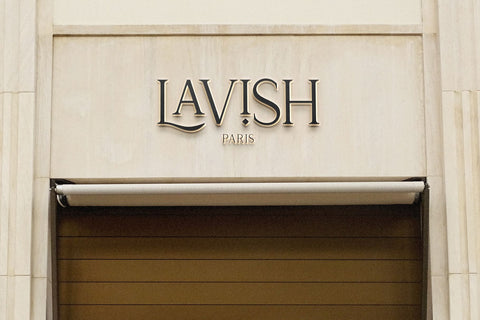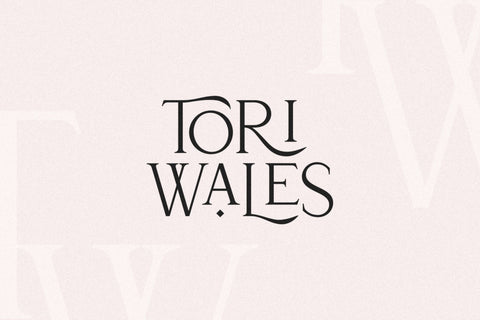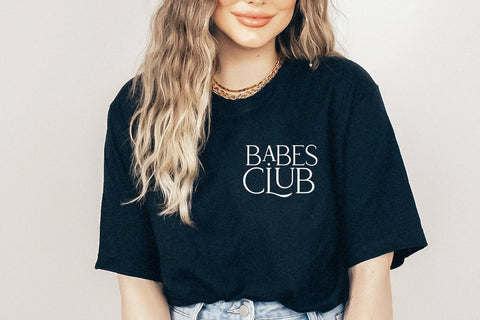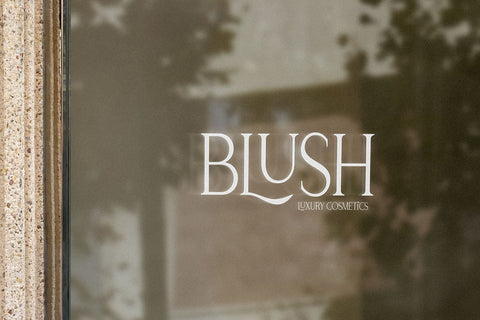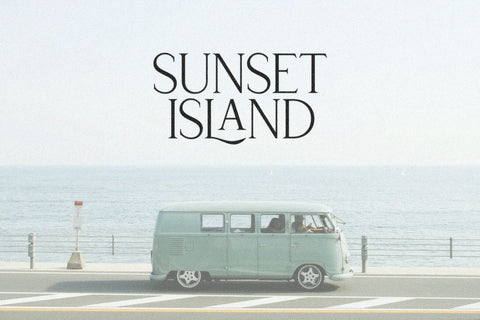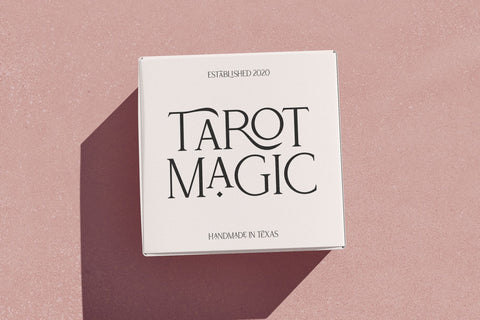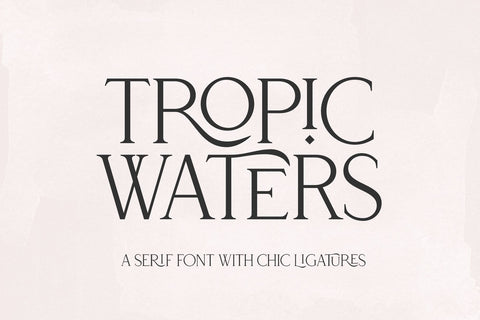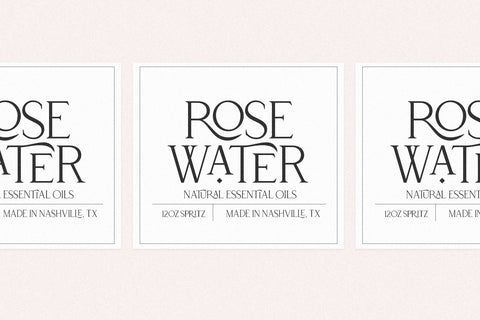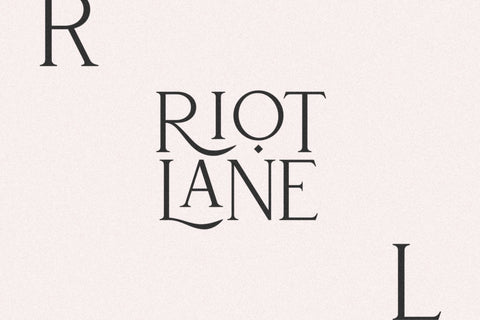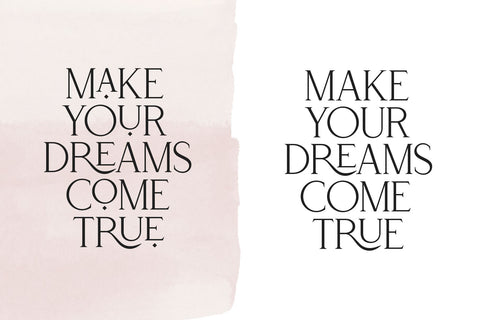
Tropic Waters - Classy Serif Font
Tropic Waters - a serif font with chic ligatures.
Tropic Waters makes it easy to create stunning logos, advertisements, headlines, social media quotes, branding and more! This font has been carefully created to bring together timeless letterforms with modern ligatures.
To take full advantage of this font, you will need to use a design program that supports opentype features - such as photoshop and illustrator. With opentype features enabled, the font will change and interlock as you type. You can easily access the diamond letters by typing in lowercase (a, e, i, o, u). Even without using the interlocking pairs, this font is a clean, chic serif that will bring a lot of interest to your designs!